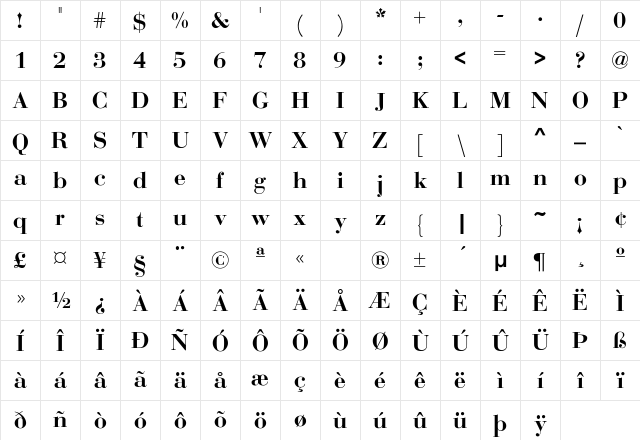
Bodoni-Bold Regular Free Font
Bodoni-Bold Regular
Bodoni-Bold Family
Complete Bodoni-Bold Regular glyph index. Displaying only characters natively supported by Bodoni-Bold Regular font.
Design Context for Bodoni-Bold
Bodoni-Bold is a composed and adaptable typeface that performs quietly and consistently across a wide range of design contexts. Its bold stroke weight gives it real presence on the page.